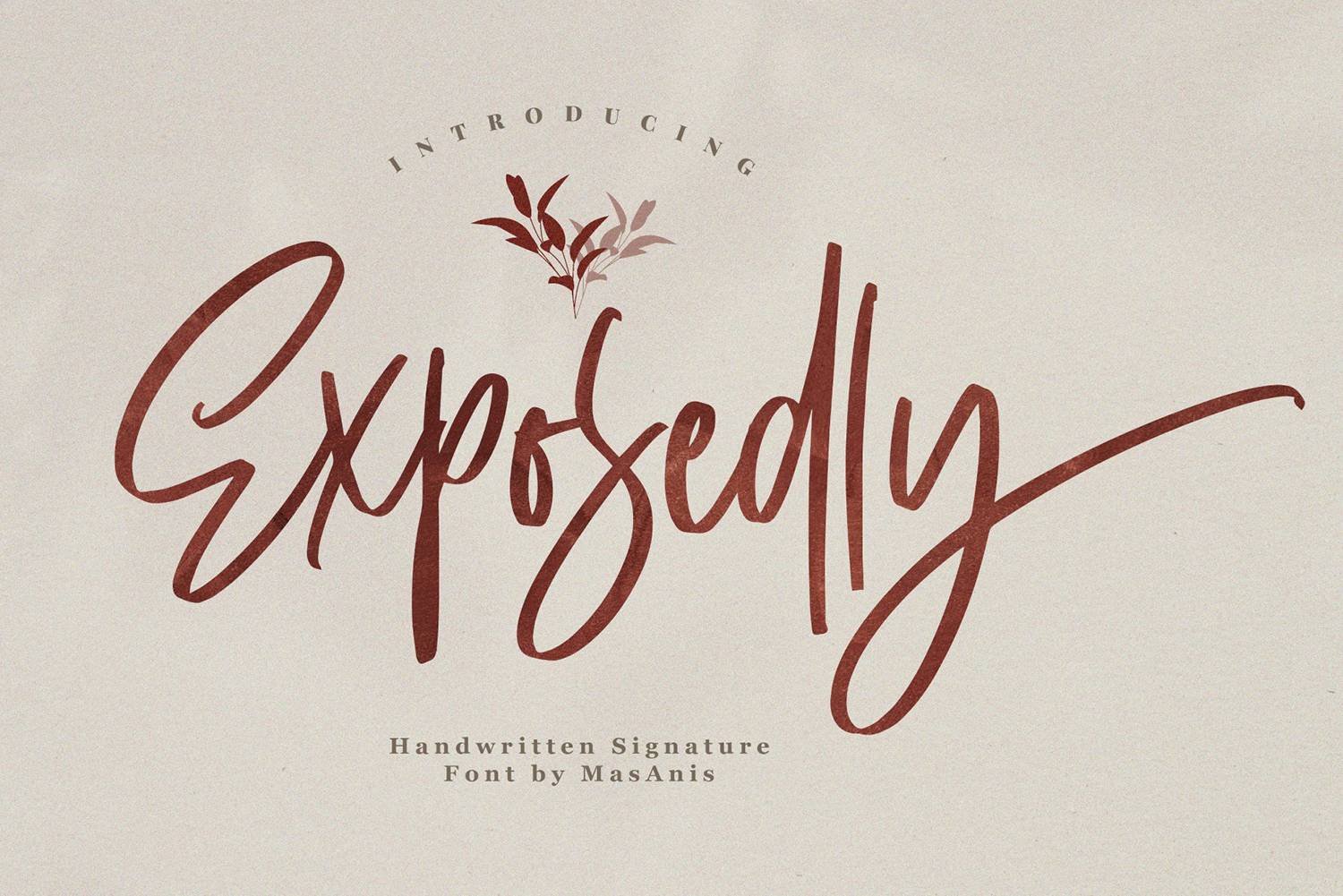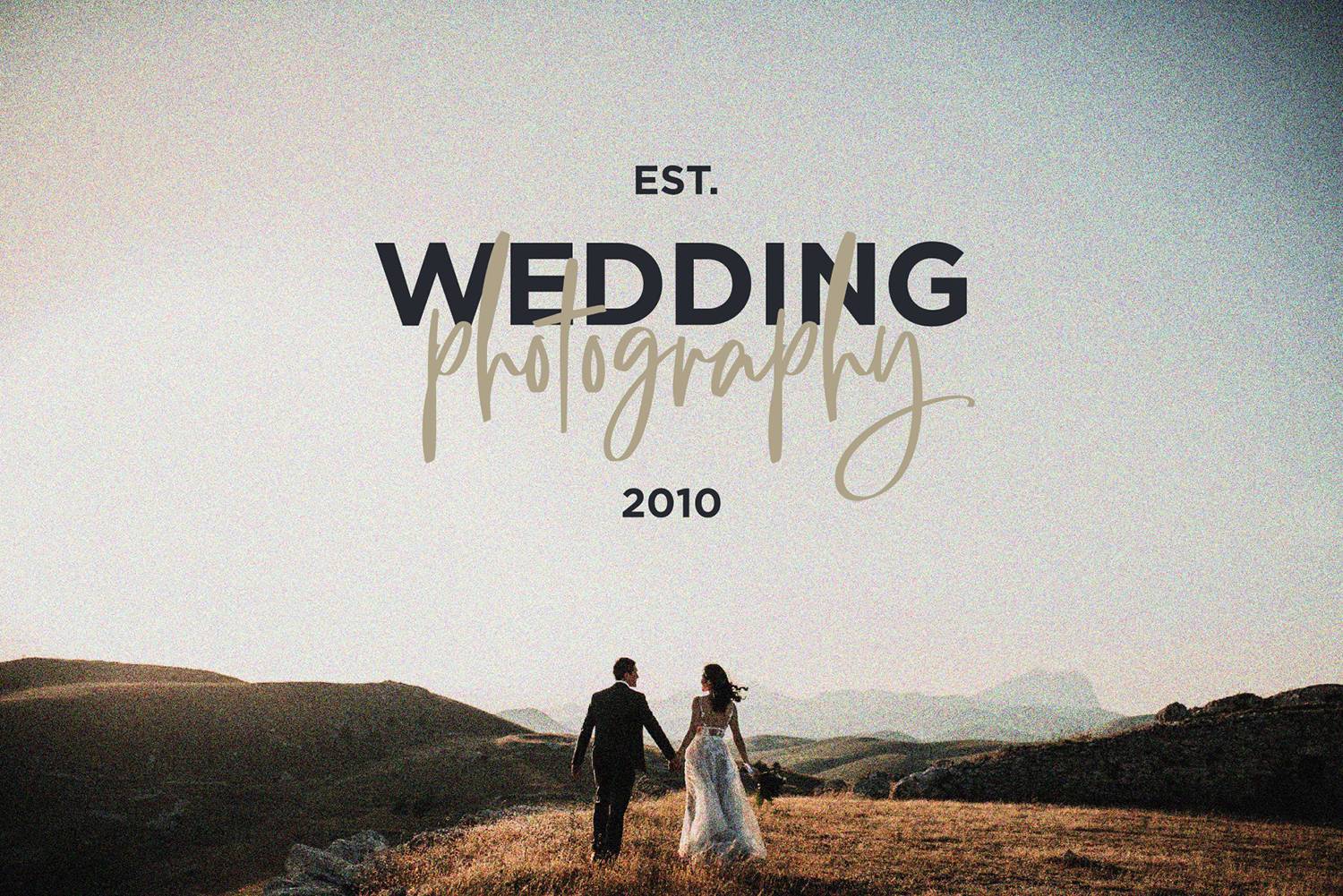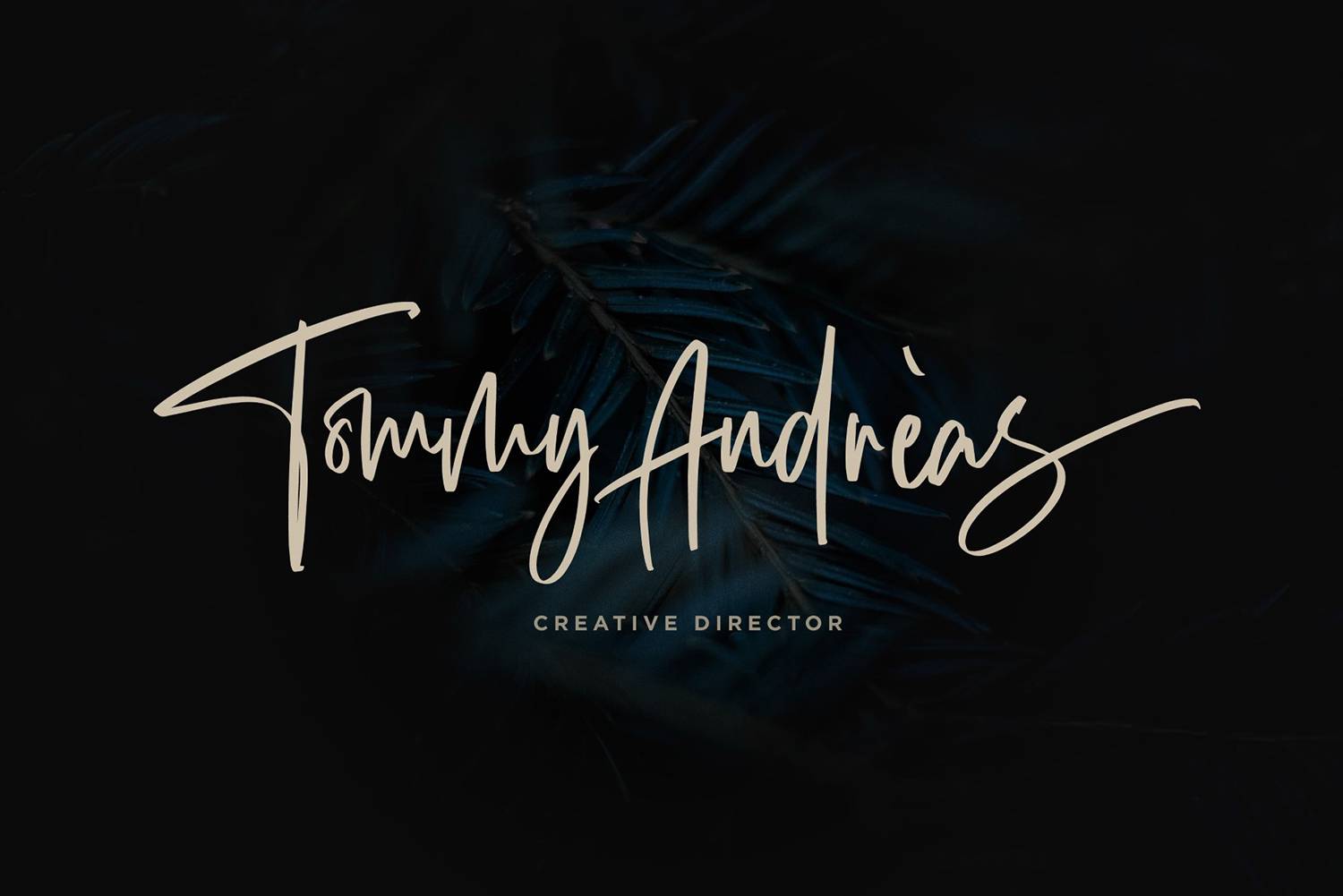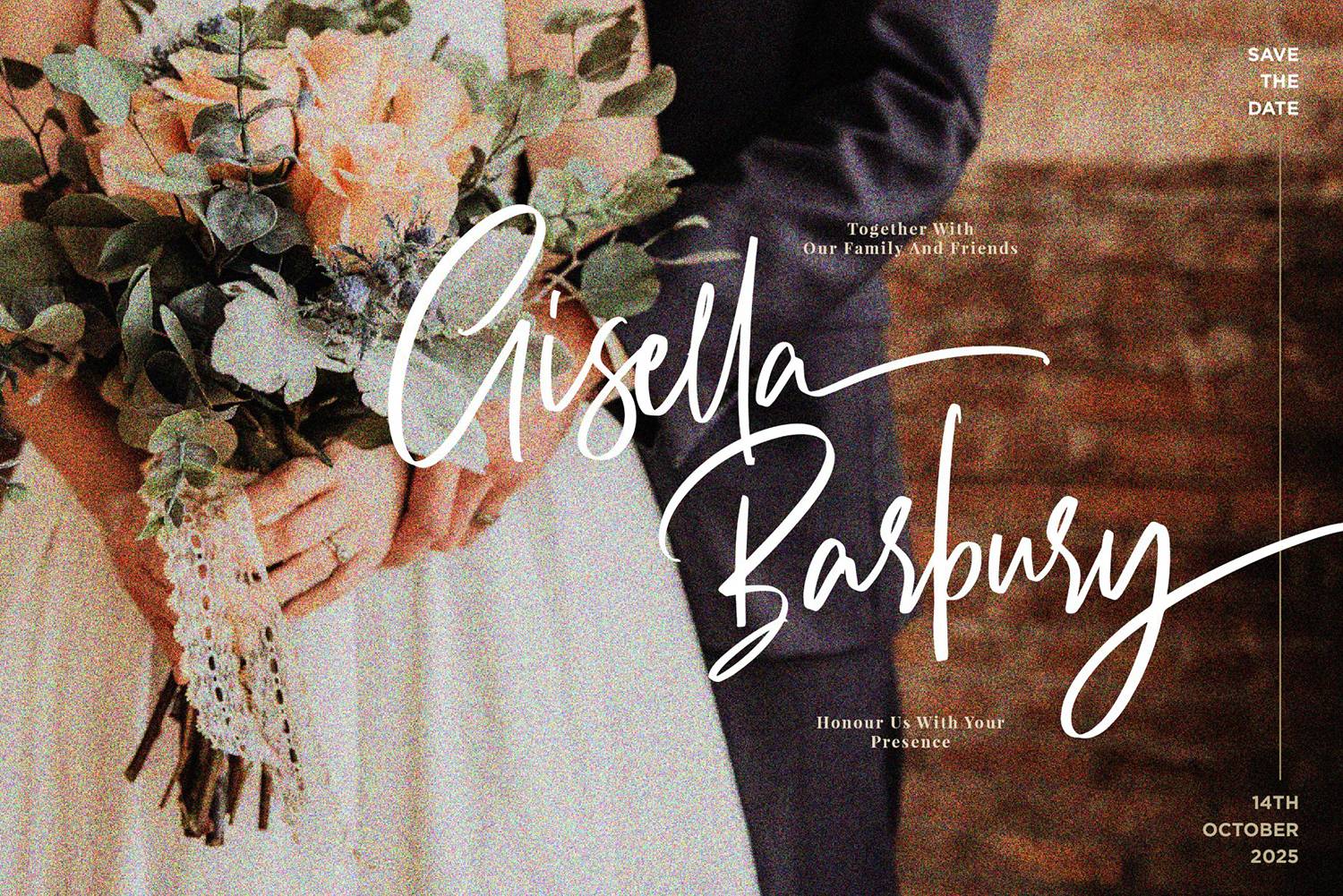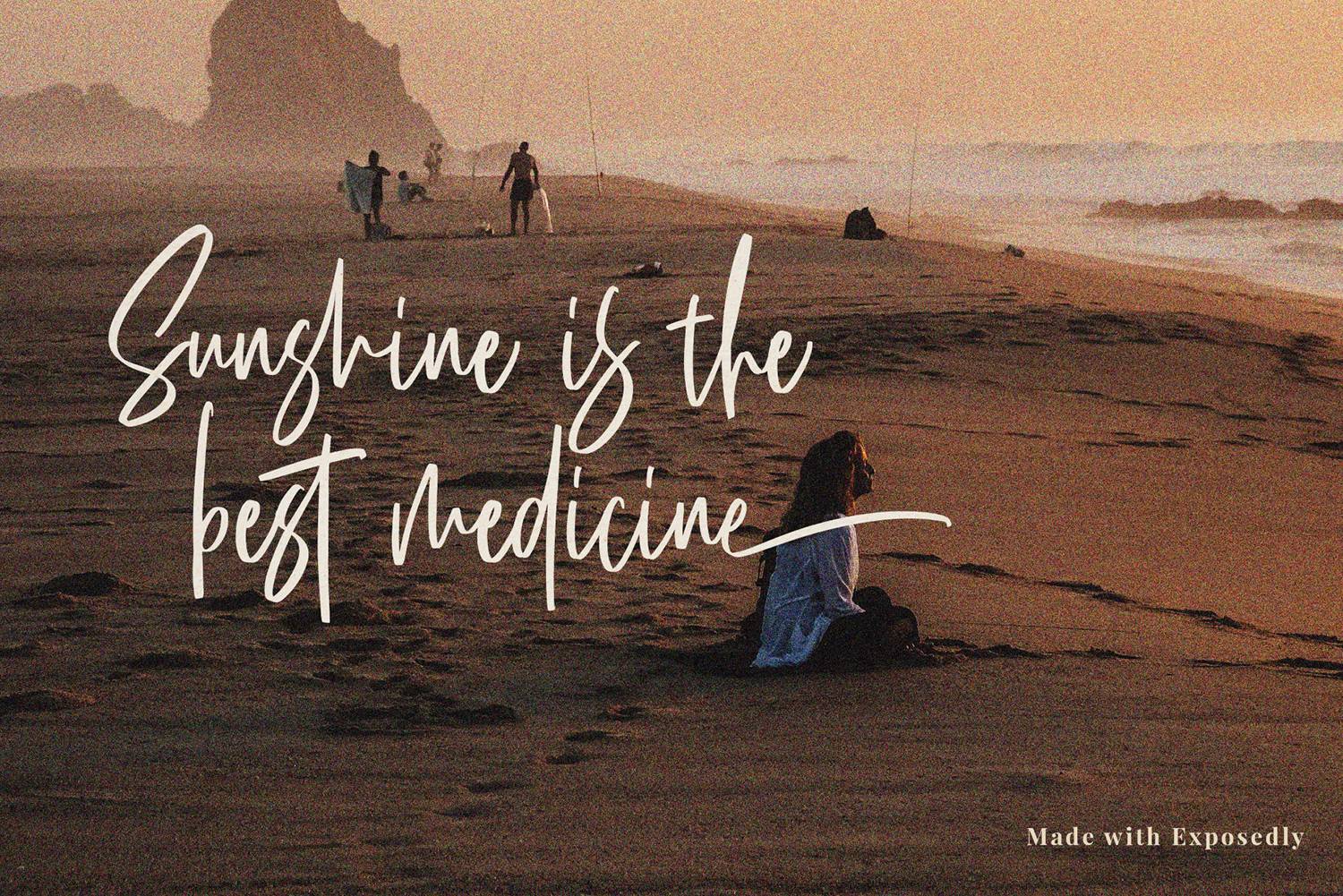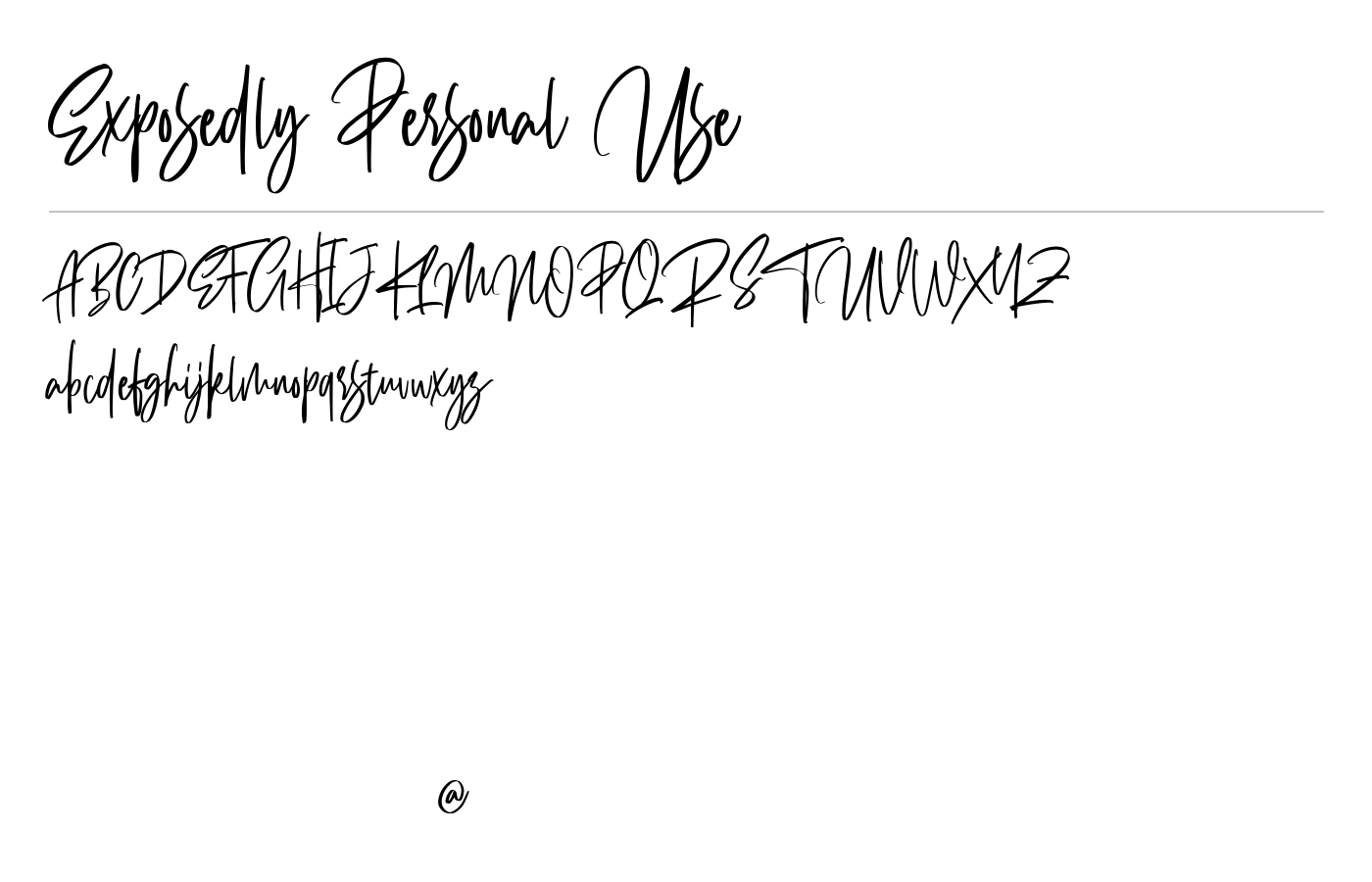
Exposedly is a lively, handwritten script font that captures a casual and personal feel with its tall, narrow letterforms and fluid strokes. Its slender, slightly irregular lines give it an expressive, artistic vibe, making it ideal for creative projects, personal branding, or informal communications where a touch of personality and warmth is desired. This font works best in headlines, logos, and invitations, adding a stylish yet approachable character to any design.
Exposedly Font
About Exposedly Font
| Font family | Exposedly Font |